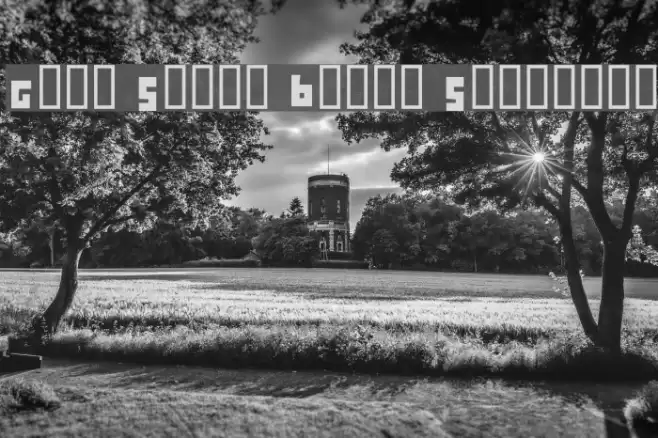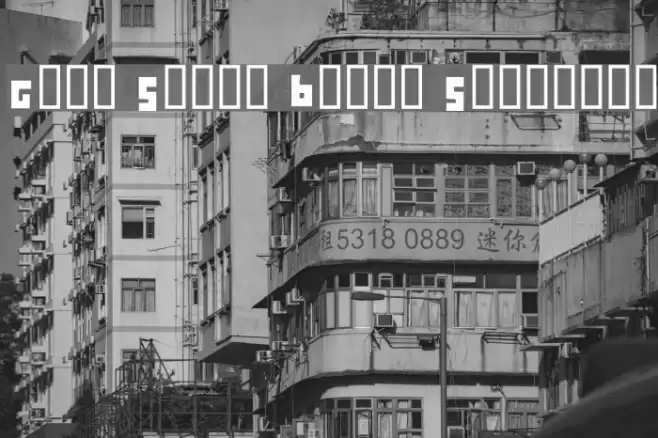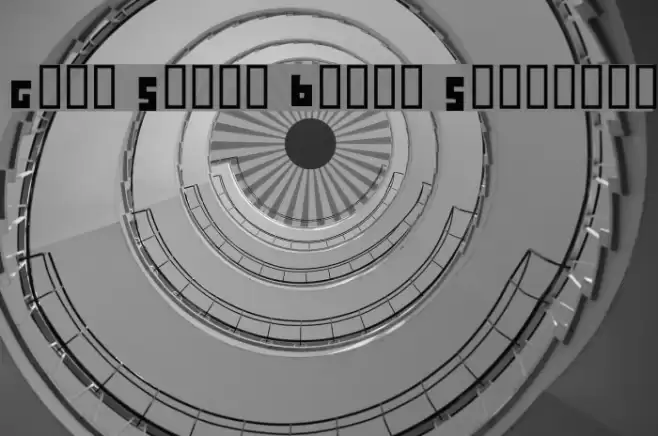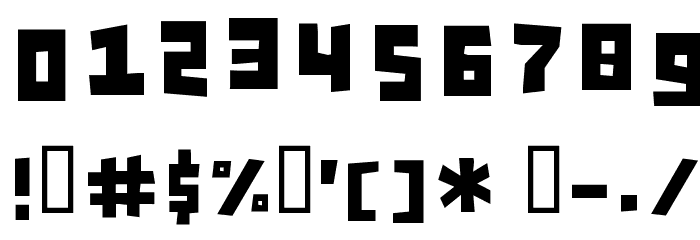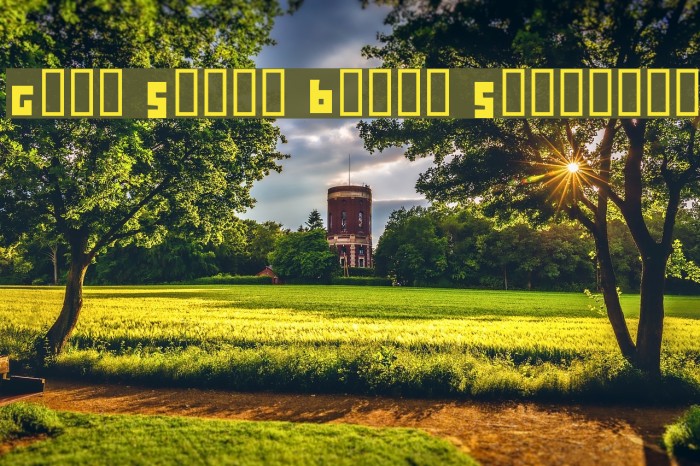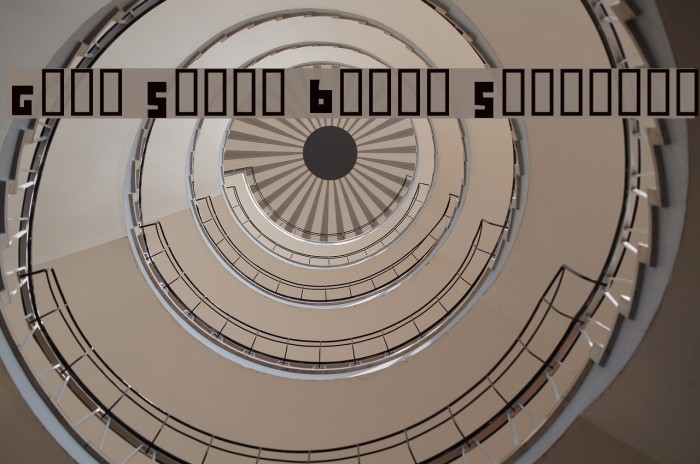
Girl Scout Bitch Sadistic Font
Girl Scout Bitch Sadistic Description
This font features a bold and playful design with a distinctly geometric and blocky appearance. Each character is crafted with sharp angles and a slightly irregular form, giving it a quirky and dynamic feel. The uppercase letters maintain a consistent height, while the lowercase letters exhibit a similar style, ensuring a cohesive look across text. Numbers and special characters follow the same design principles, making them easily recognizable and visually appealing. The font's unique style is ideal for projects that require a fun and eye-catching aesthetic.
A bold, geometric font with a playful and quirky design from Decorative fonts.
- Proposed Projects: Ideal for children's book covers, playful branding, posters, and creative digital content.
- Overall Style: Playful, Quirky, Modern